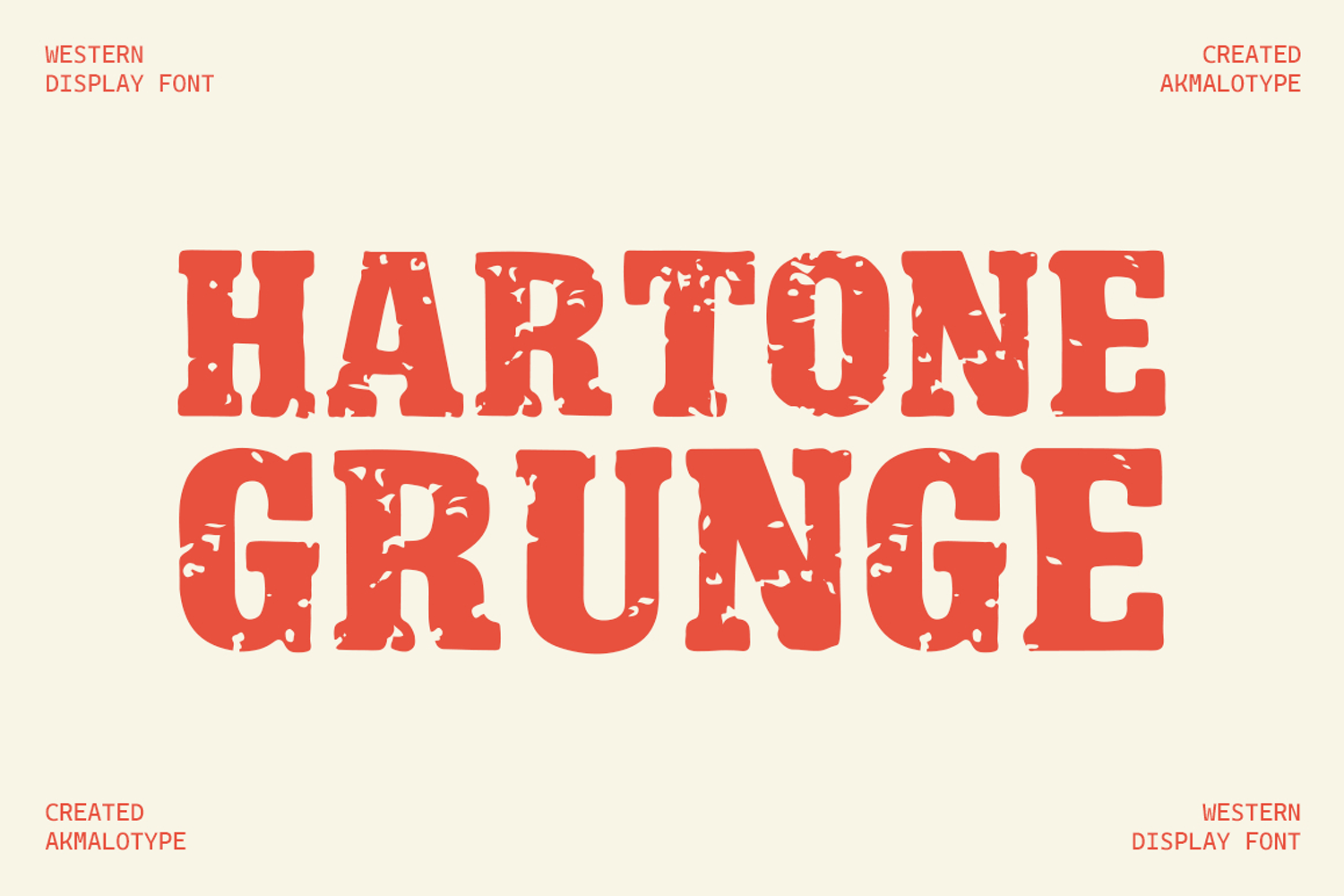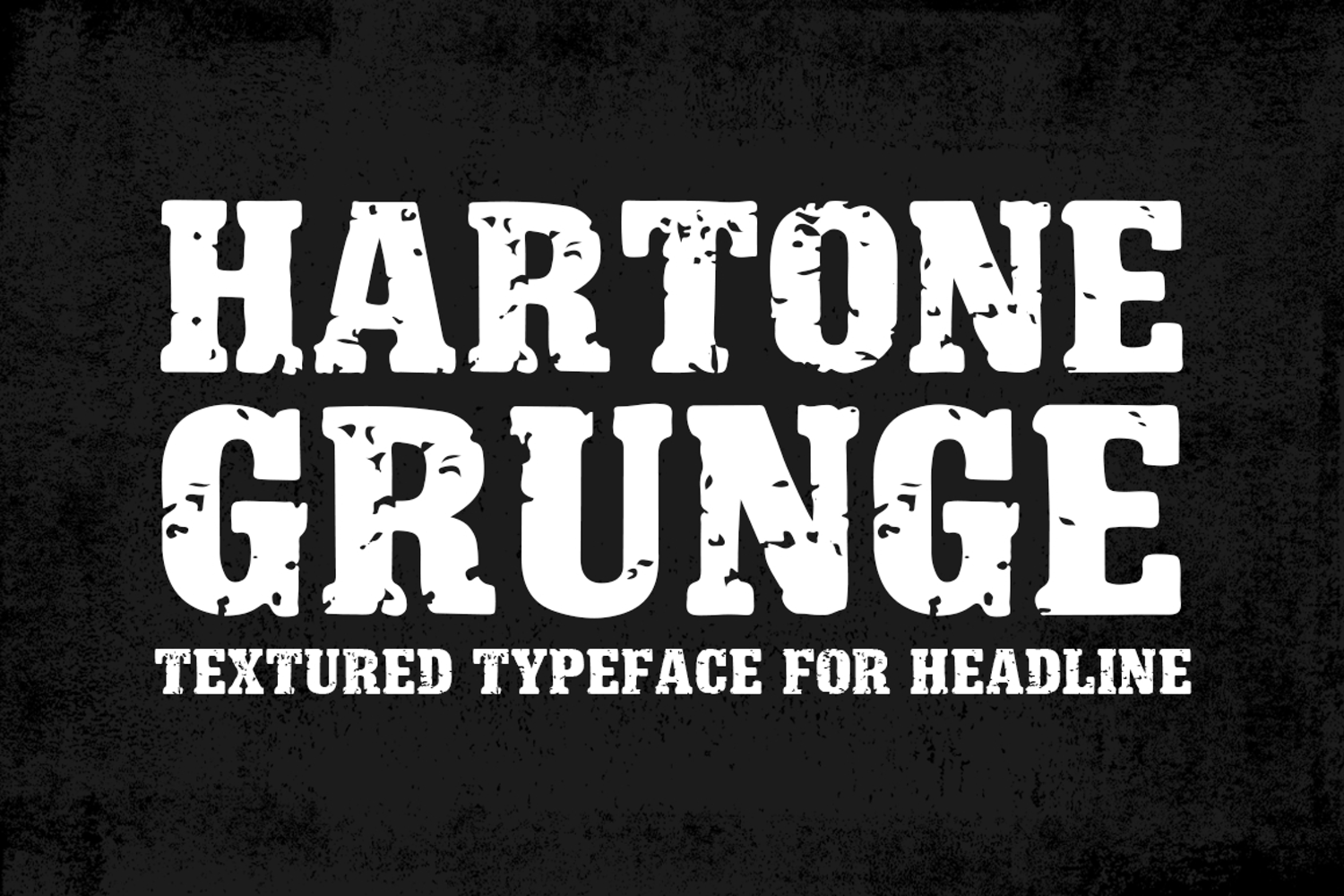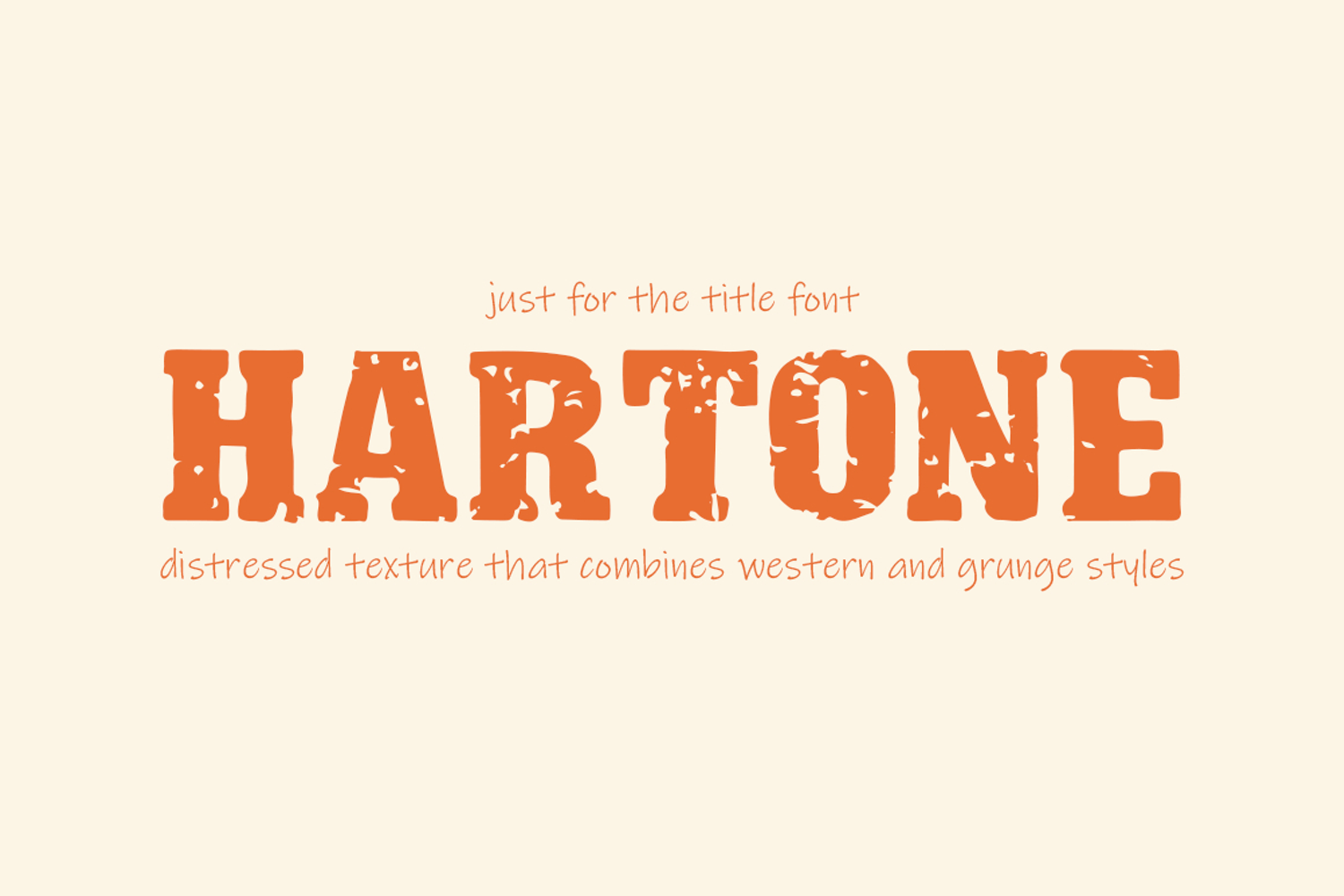
Hartone Font - Vintage
Hartone
HARTONE is a bold display font with a rough, distressed texture that combines western and grunge styles. It delivers a strong, rugged character, making it perfect for posters, branding, and designs that need a tough and impactful look.